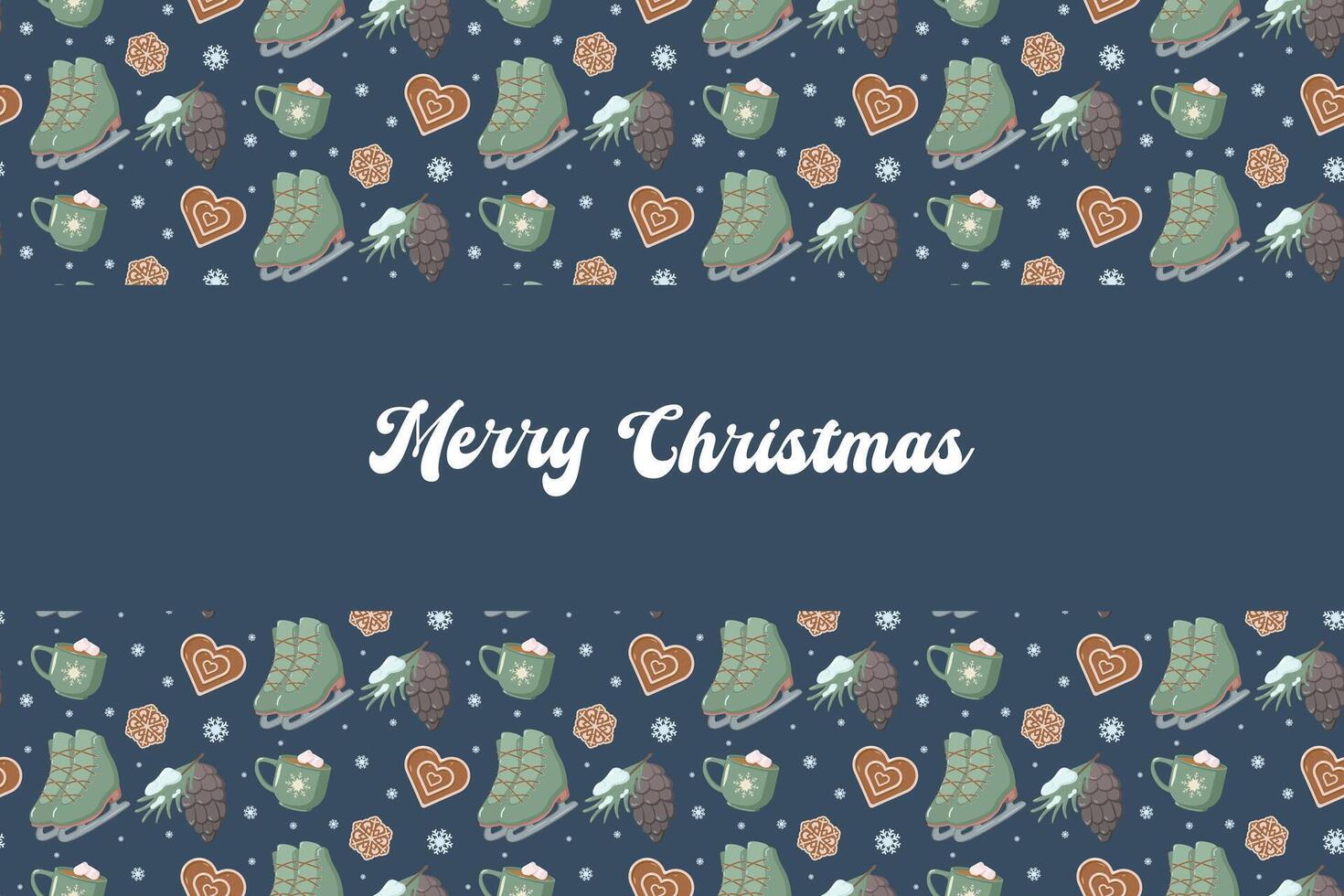
Christmas design with Merry Christmas text in white cursive font on dark blue background. Surrounded by festive pattern of ice skates, pinecones, cocoa mugs, cookies, and snowflakes Pro Vector